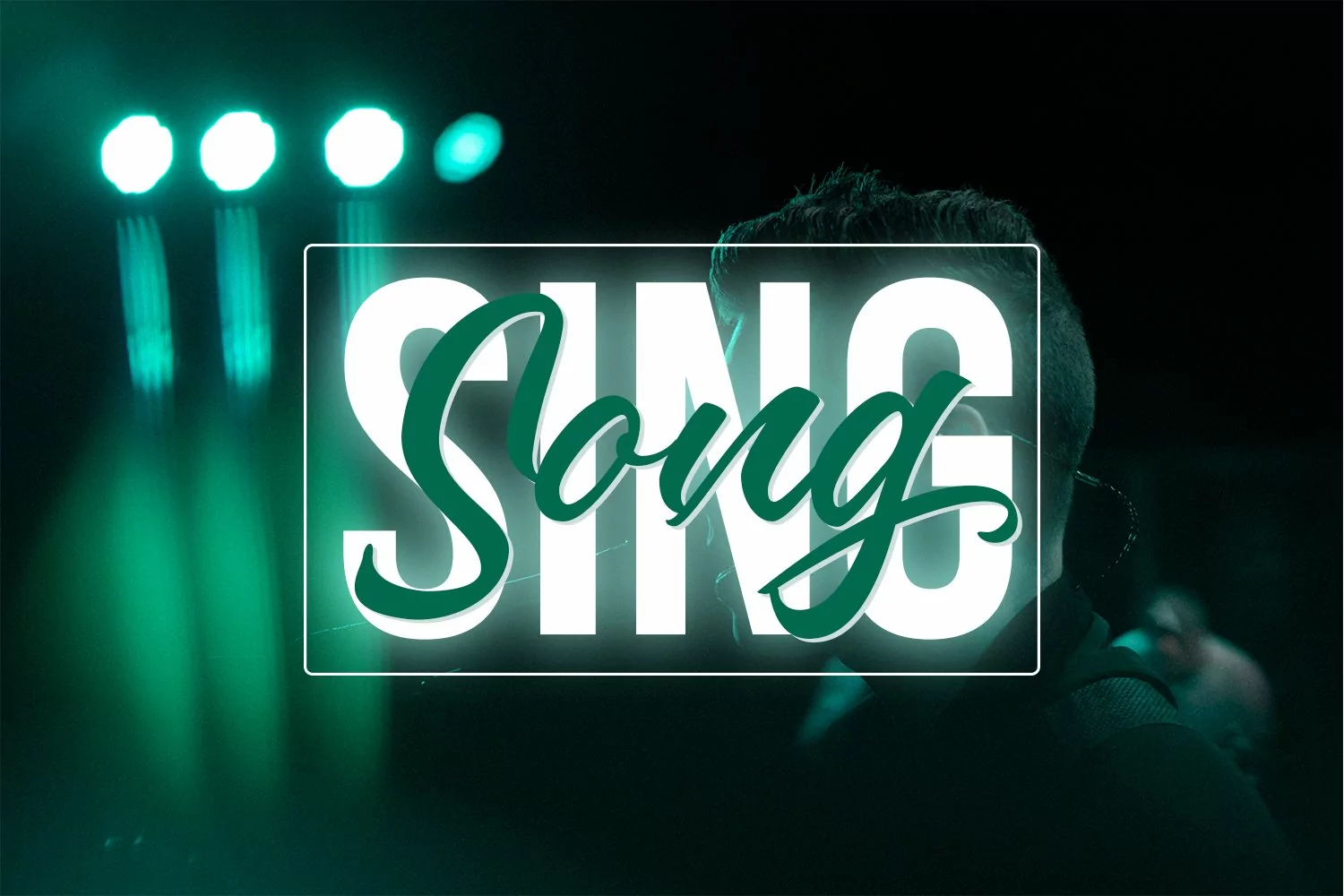
Vorsatille Modern Script Font
Give your designs an authentic handcrafted feel. Vorsatille is perfectly suited to logo, stationery, branding, typography quotes, magazine or book cover, website header, clothing, branding, packaging design, restaurant and more.